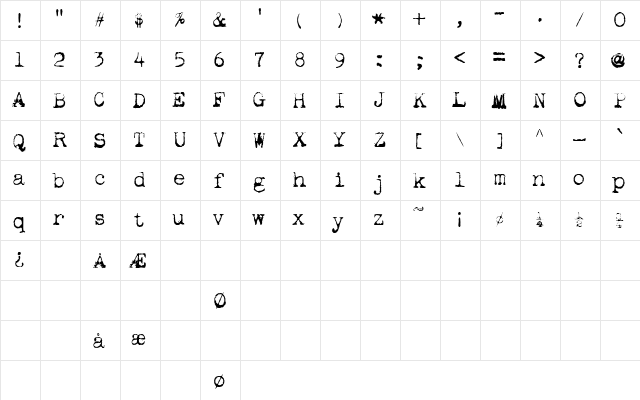
pookie fair Regular
Design Context for pookie fair Typeface
pookie fair takes a measured approach to typography — its balanced proportions and neutral character make it a reliable workhorse for both digital and print work.